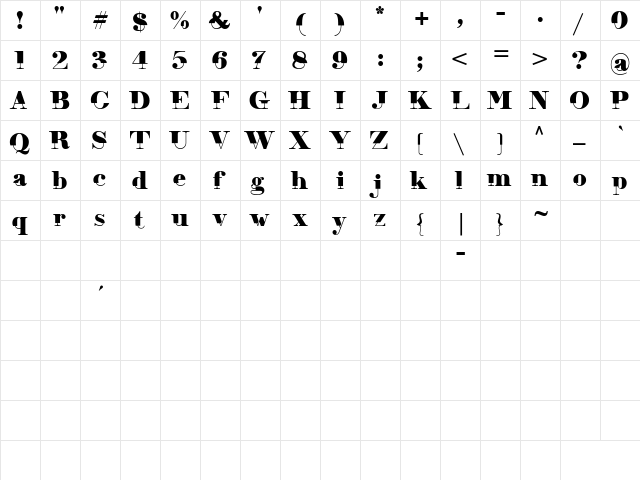
Viyola Regular
| Designer | emanesdesign |
Design Context for Viyola Typeface
Viyola offers clean, dependable letterforms without strong stylistic allegiance, making it a practical choice for designers who need flexibility.